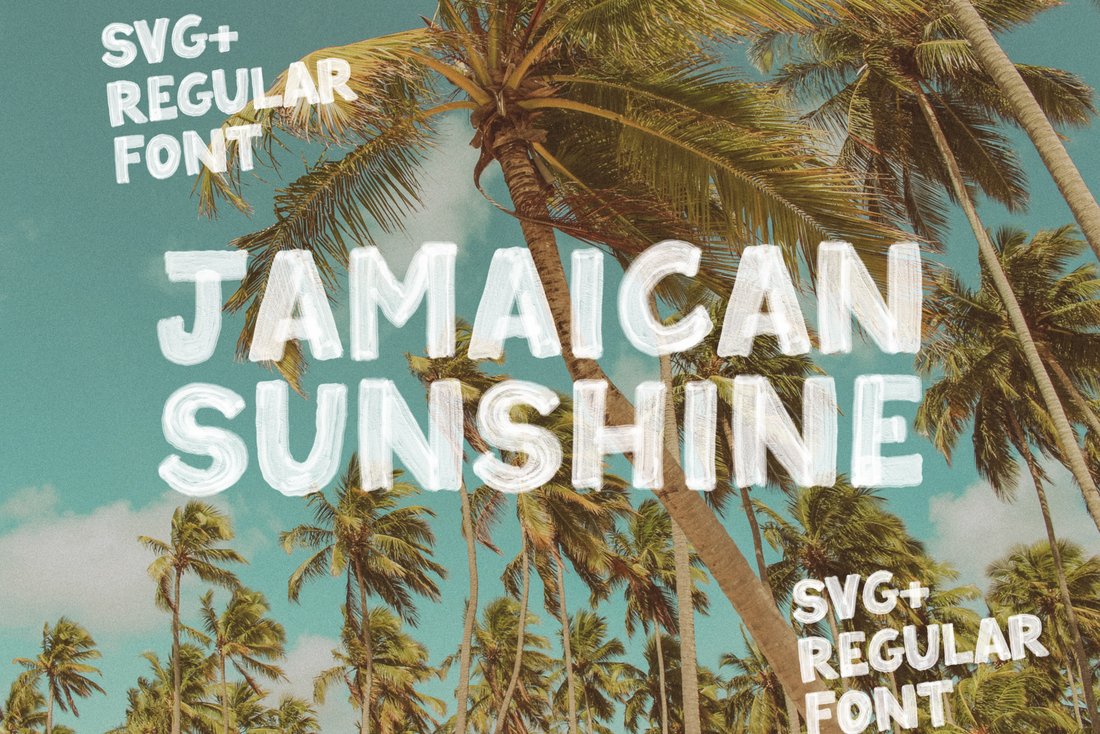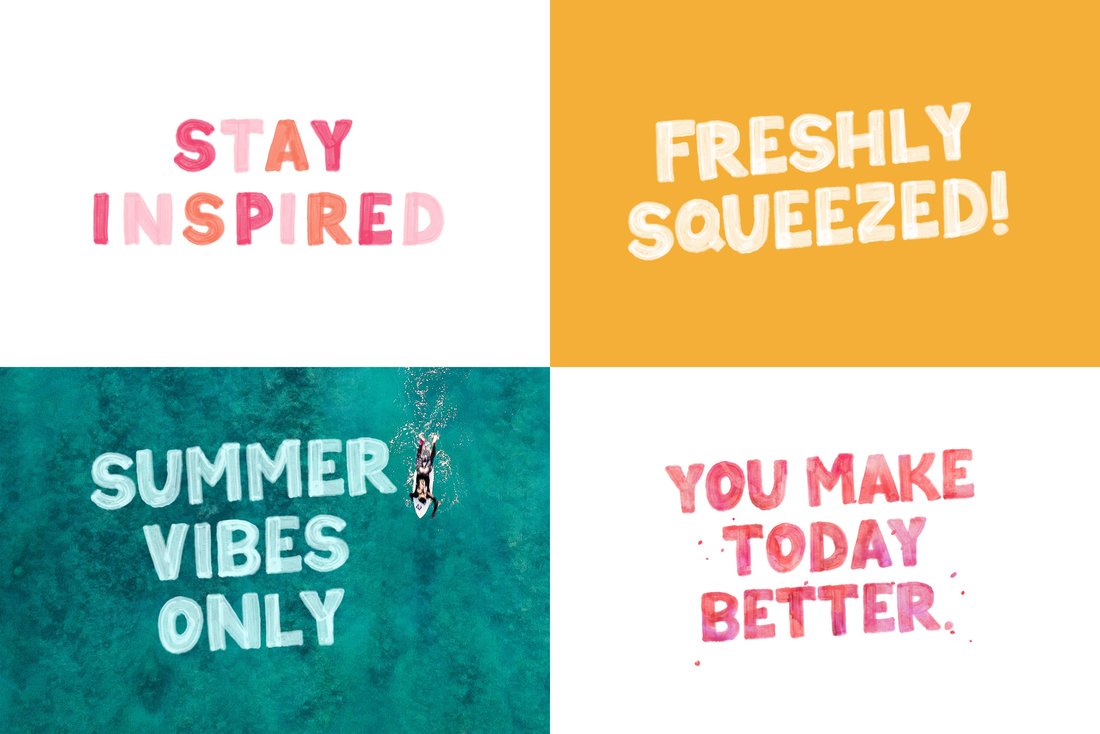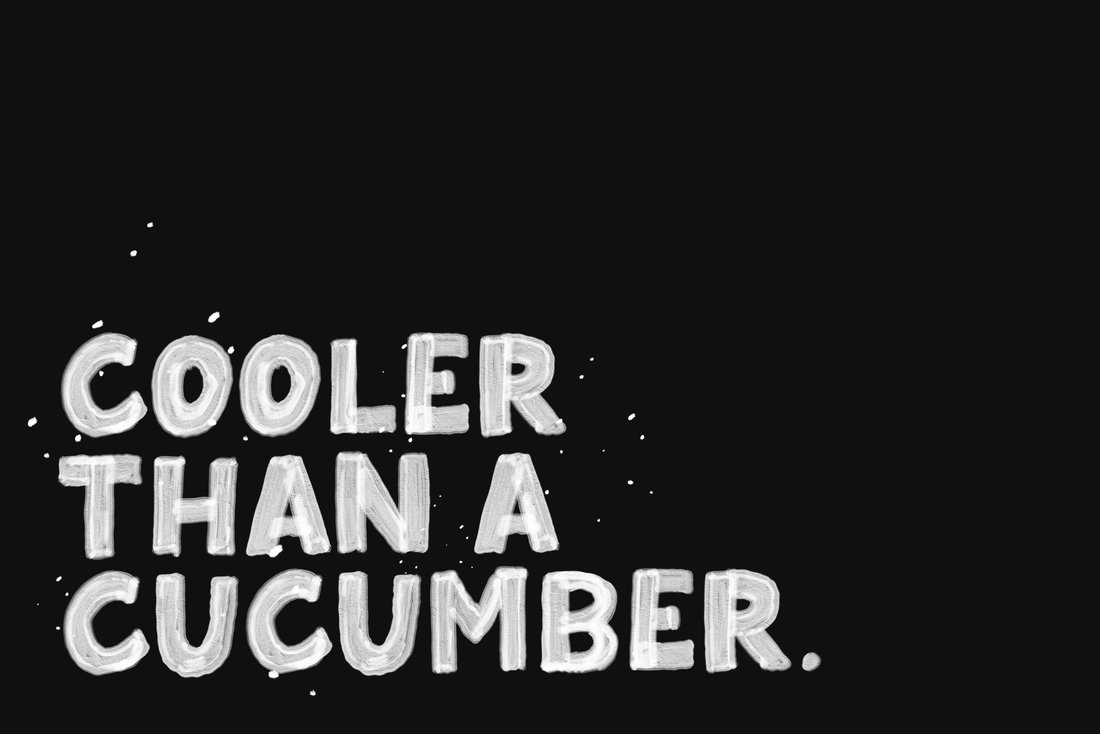
Jamaican Sunshine SVG and Regular Fonts
An all-caps quirky SVG font with brushed marker texture built-in. A regular version fo the font is included for those who don't have Photoshop or Illustrator (SVG fonts require Photoshop CC 2017 or Illustrator CC 2018 (or newer) to use.)
Add a watercolour pattern overlay for some awesome effects too :)